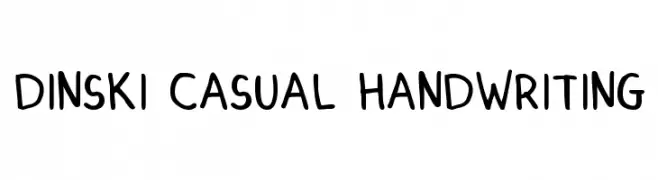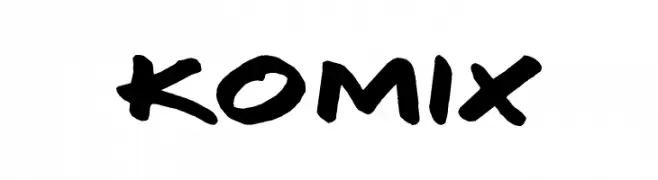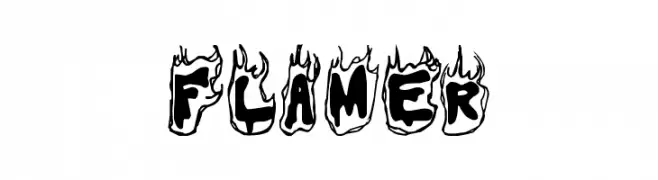
A casual, playful handwriting-style font with rounded characters.
A bold, grid-patterned font with a pixelated, digital style.
A distressed, grunge-style font with a rough, edgy texture and irregular strokes.
A bold, playful font with a comic book style and hand-drawn appearance.
A bold, modern font with thick strokes and a slightly condensed style.
A bold, flame-themed decorative font perfect for dynamic and energetic designs.